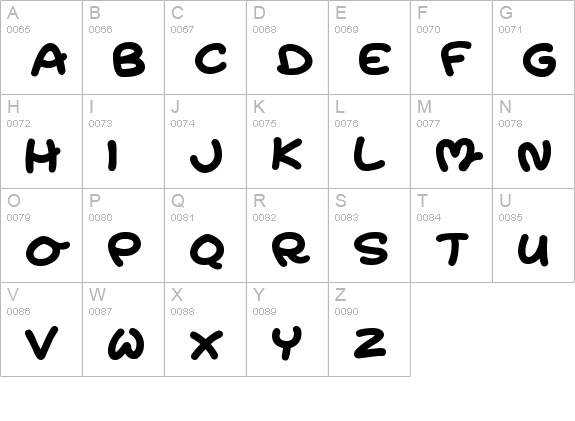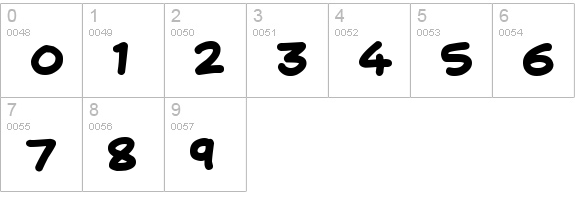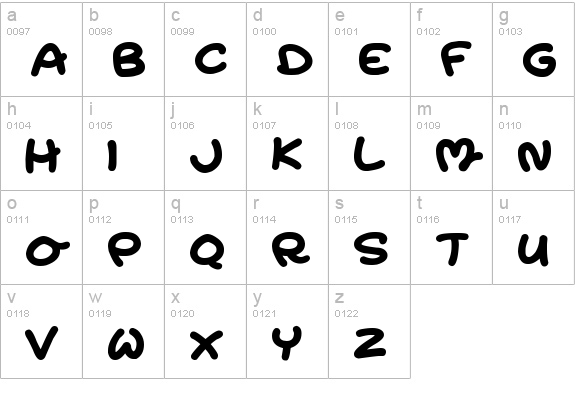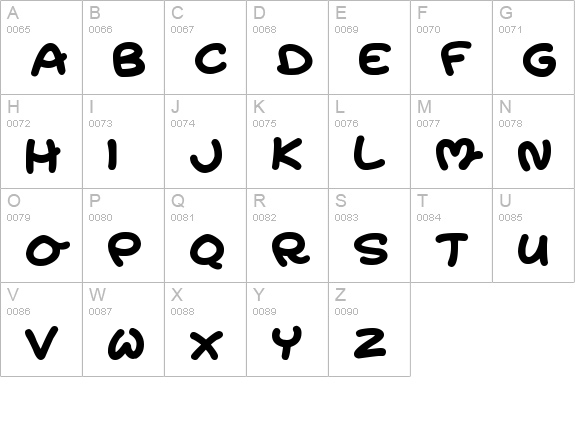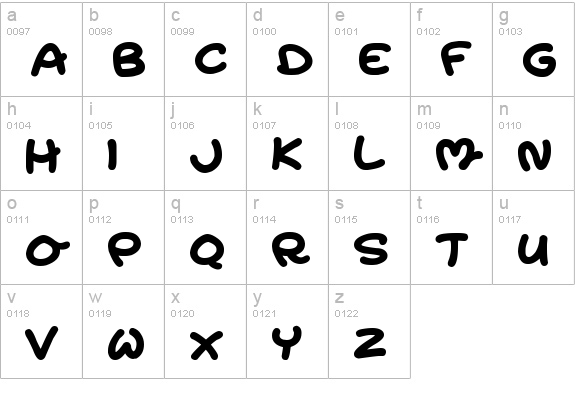
Magic Moons is a free for personal use font in the Fancy > Comic category, designed by Darrell Flood. It has been downloaded 42 times and is available for Windows, Mac and Linux.
Magic Moons font is a whimsical and enchanting typeface that will transport you to a magical realm with its charming and mystical appearance. Perfect for adding a touch of fantasy to your designs, this unique font features elegant curves and intricate details that evoke a sense of mystery and wonder.
With its ethereal and otherworldly vibe, Magic Moons font is sure to captivate your audience and make your projects stand out. Whether you're creating invitations, posters, or branding materials, this versatile font will add a touch of magic to any design.